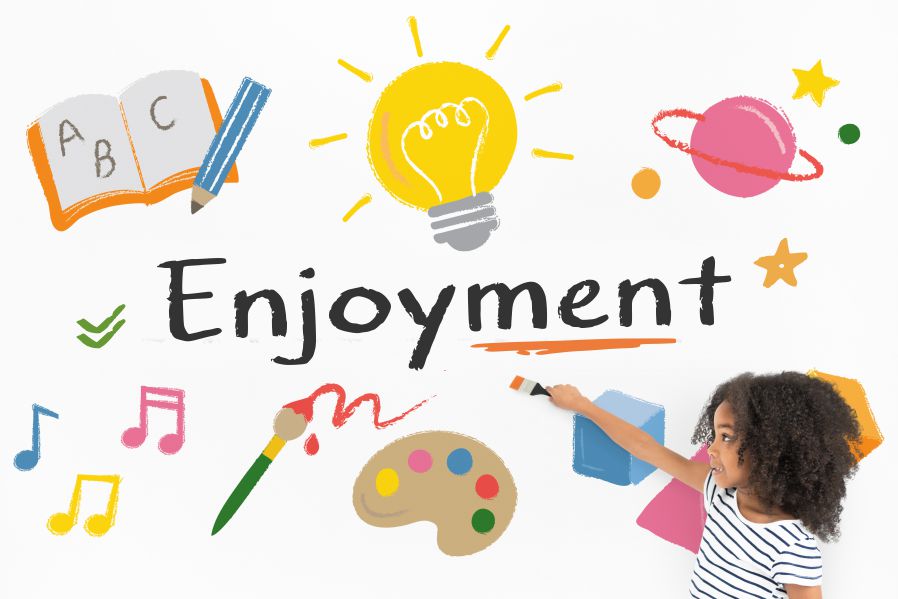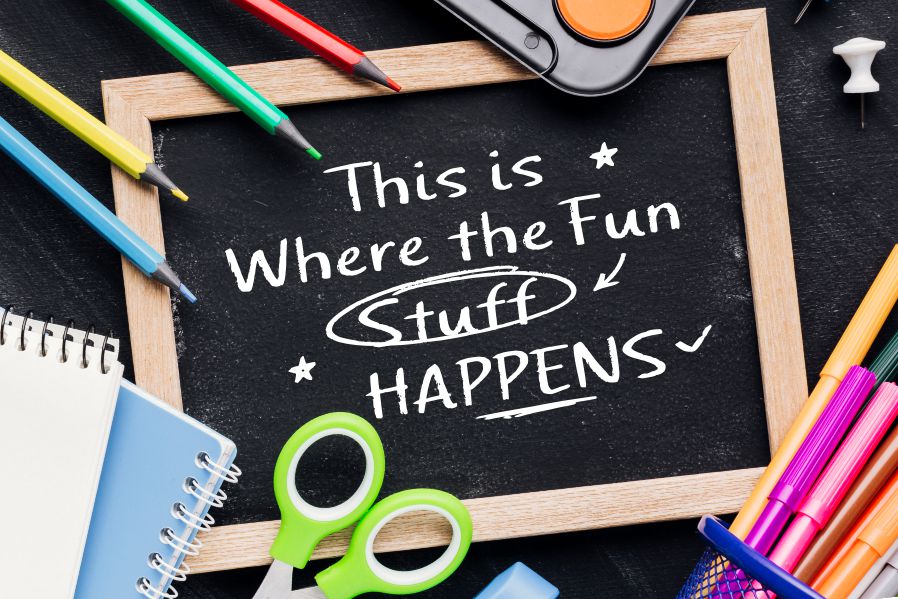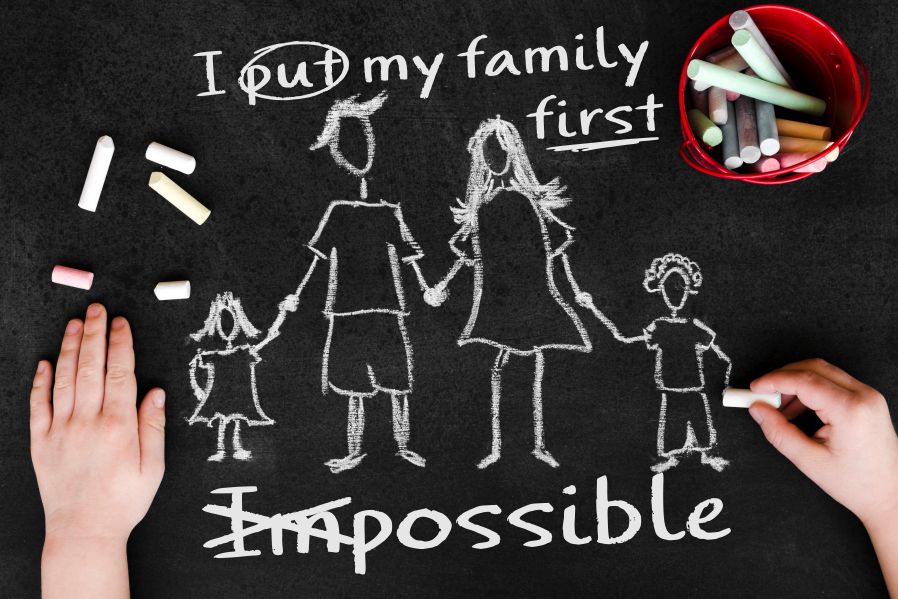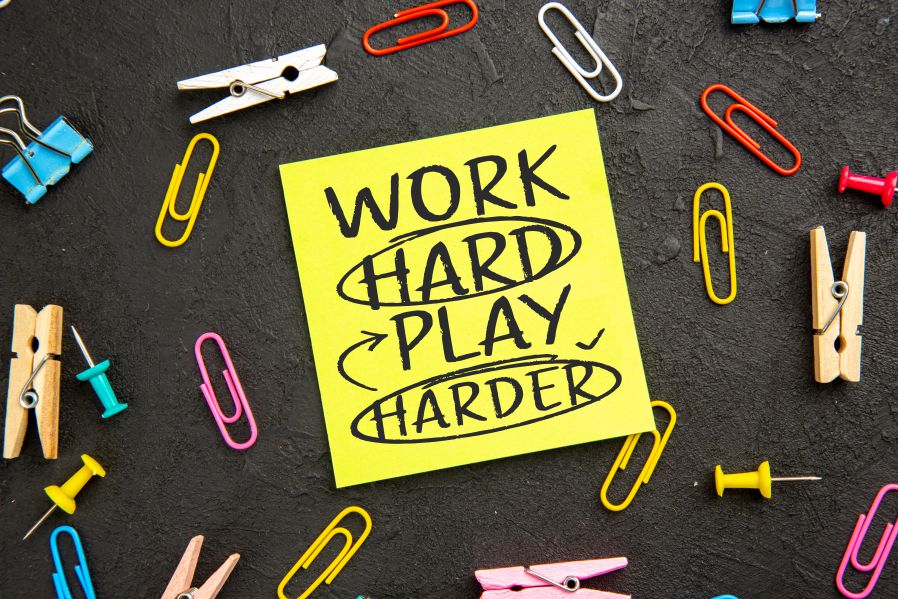
Chalkvibes Font
Chalkvibes Display Font
This font is perfect for any titles, logo, product packaging, branding project, megazine, social media, wedding, or just used to express words above the background.